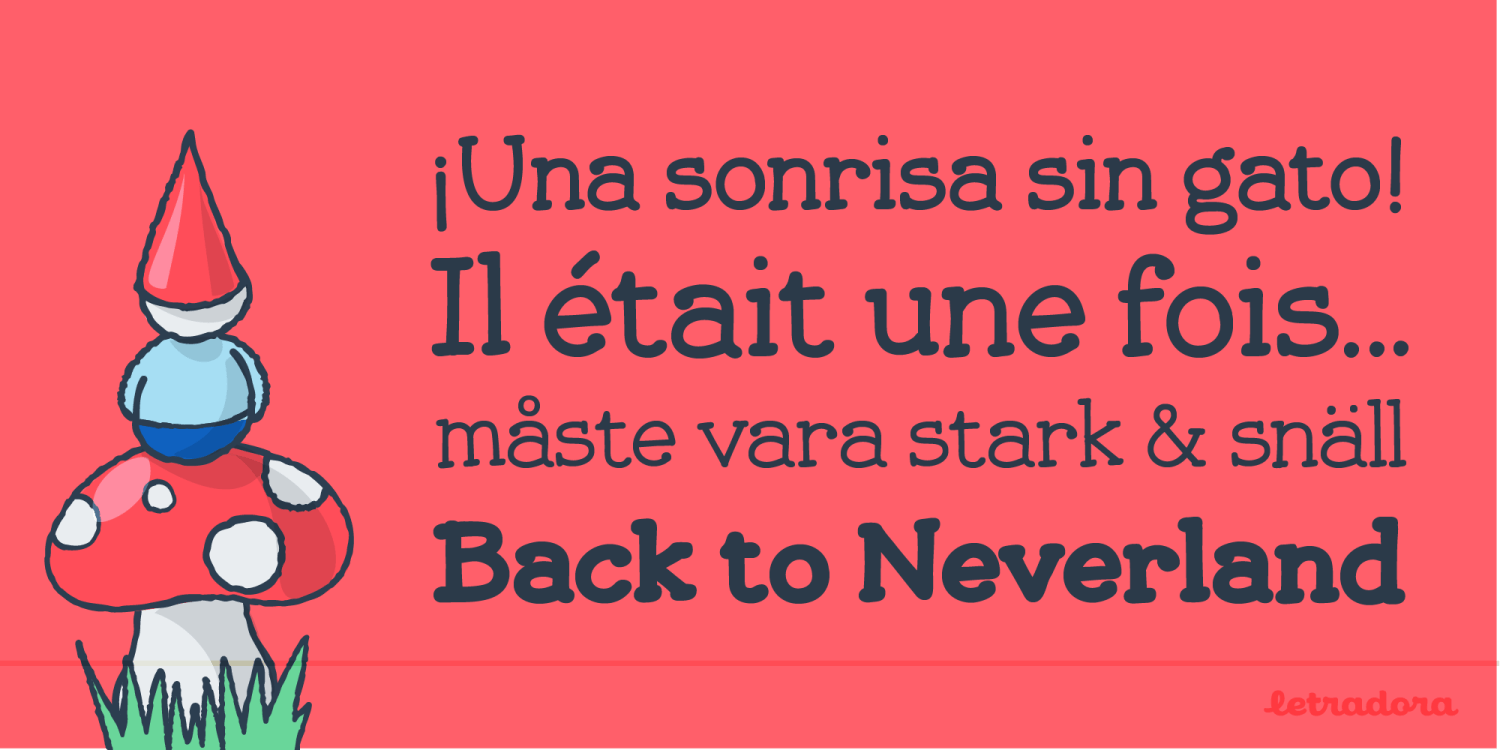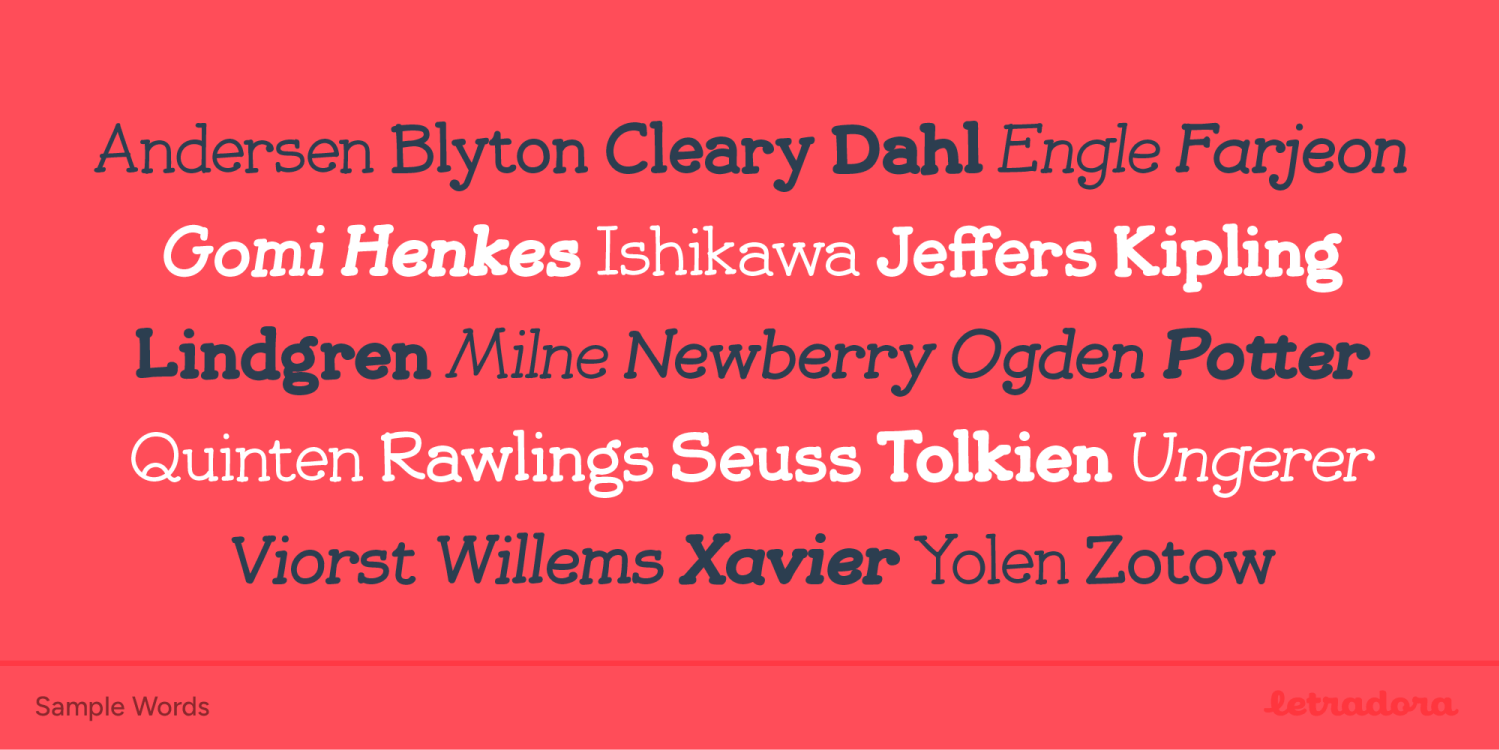
About Jolly Good Serif
JollyGood Serif is another member of the JollyGood family. This is a hand drawn serif/typewriter font that can work both for comics or as a display face. It is a complete family with 4 weights in regular and italic (8 fonts in total). It has…